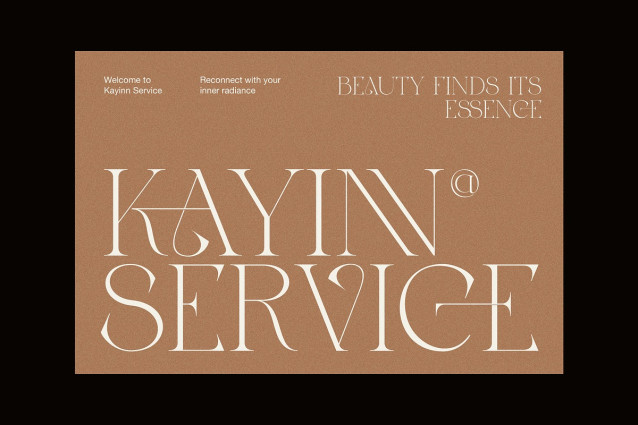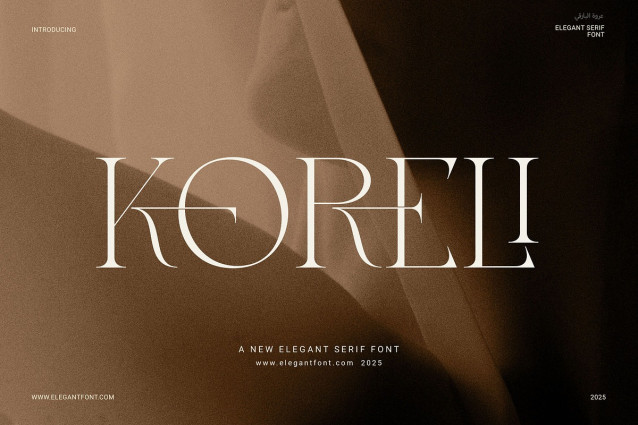
Koreli Font
Koreli Font – Elegant Serif Font is a modern and refined typeface designed to elevate your visual identity with class and clarity. Its proportional and well-balanced shapes give every word a polished appearance, making it perfect for both luxury and minimalist design projects.
With clean lines and soft curves, Koreli creates a strong yet graceful impression. It includes functional ligatures that enhance the natural flow of text while adding a unique touch to every composition. Whether you’re working on digital content or printed materials, Koreli offers a seamless blend of beauty and function.